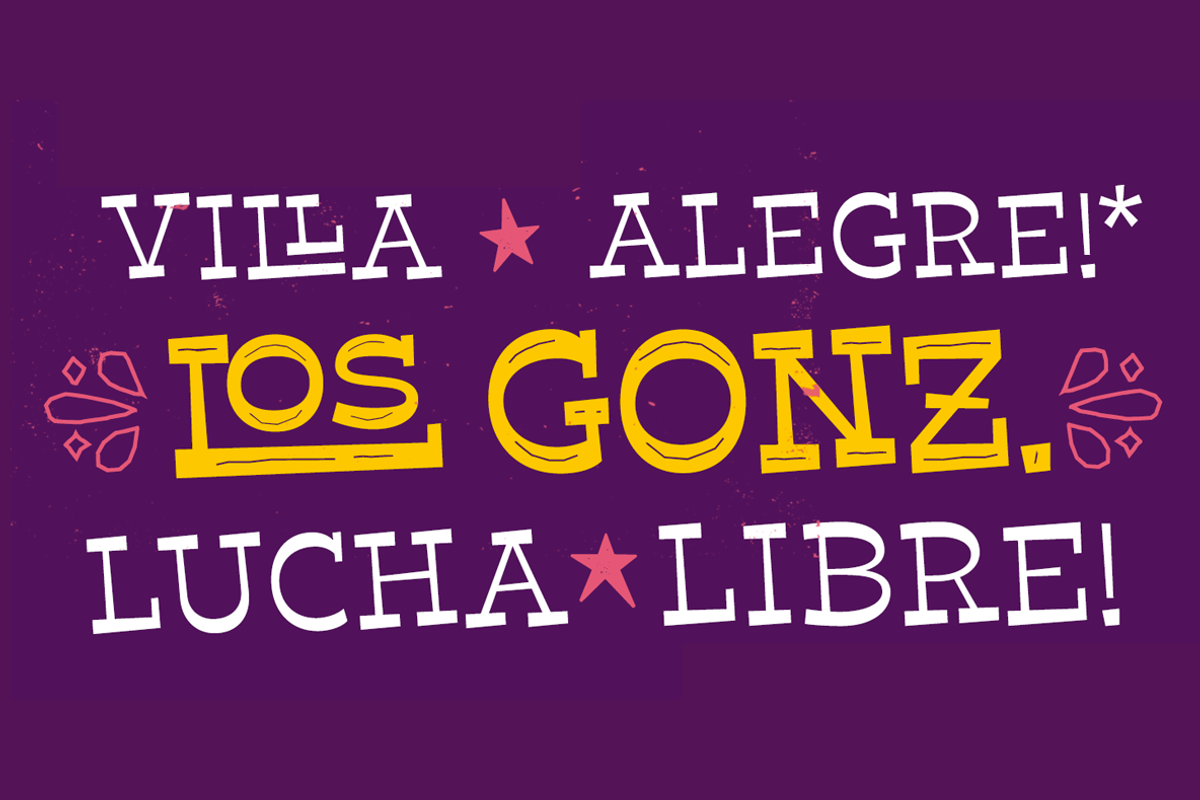
"Nacho"
Concept: Nacho, is a source inspired by the Mexican culture as the party of the dead and customs, created From the Thin to the Densa, contains a dingbat set to make the text more dynamic.